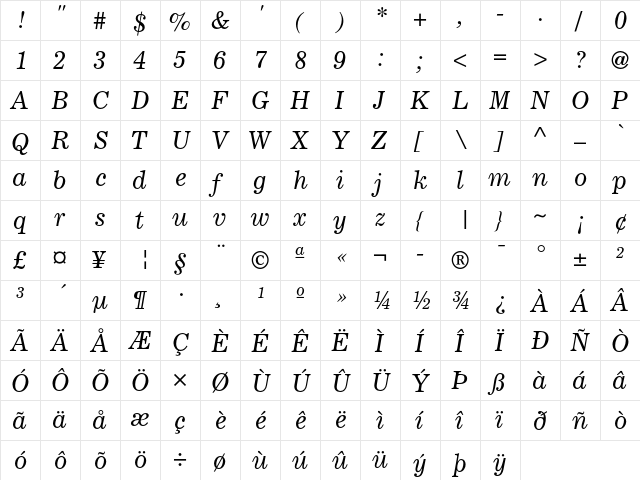
Corona Italic
Design Context for Corona Typeface
Corona is a composed and adaptable typeface that performs quietly and consistently across a wide range of design contexts. Its italic angle brings a sense of urgency and motion to the letterforms.
Pro Tip: Try Corona for annotation and caption copy alongside an upright companion — the contrast in angle creates a dynamic but ordered typographic system.